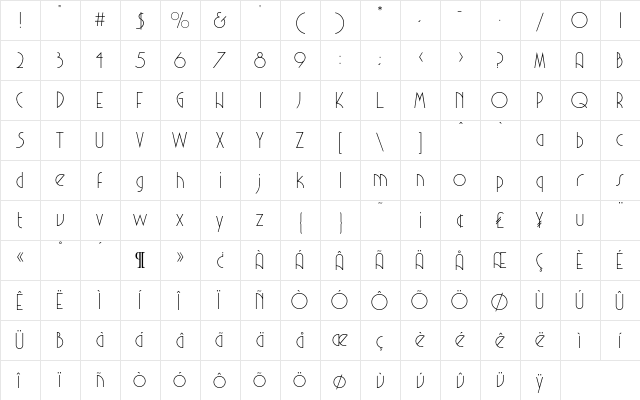
Classic Regular Font Preview
Classic Regular
Design Context for Classic Typeface
Classic wears its vintage influences proudly, with letterforms that recall mid-century signage, classic packaging, and nostalgia-driven design.
Perfect for vintage-inspired branding, retro packaging, nostalgia campaigns, and period-accurate editorial design.
Font Pairing: Combine Classic with a simple slab or neutral sans — period-accurate companions reinforce the vintage feel without competing for attention.
Pro Tip: Use Classic for headlines and pull quotes rather than body copy — its personality is best appreciated in short, focused bursts.